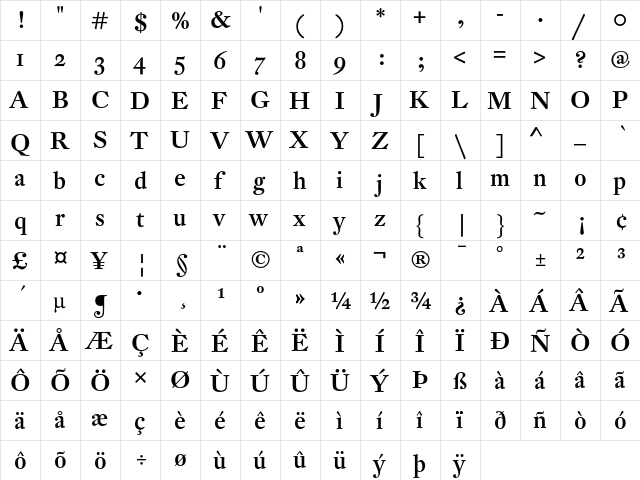
DTL Fleischmann SD Medium Font Preview
DTL Fleischmann SD Medium
DTL Fleischmann SD Medium Font Details
Design Context for DTL Fleischmann Typeface
DTL Fleischmann is a composed and adaptable typeface that performs quietly and consistently across a wide range of design contexts.
Pro Tip: Use DTL Fleischmann in both headline and body roles to test its range before committing to a single application.